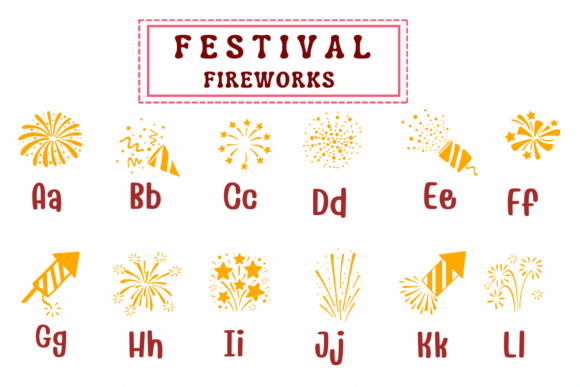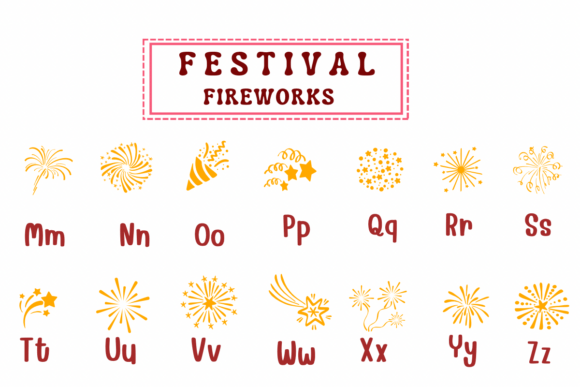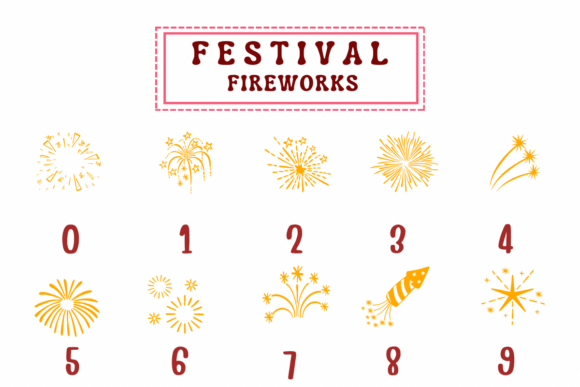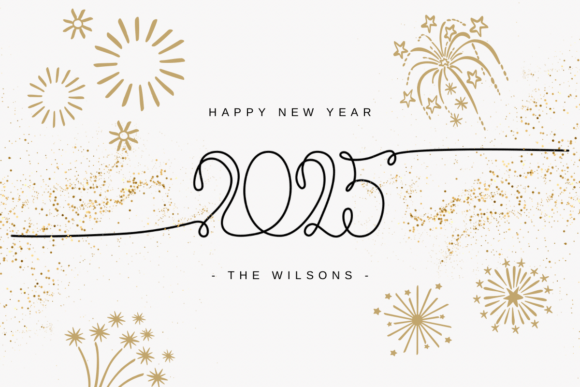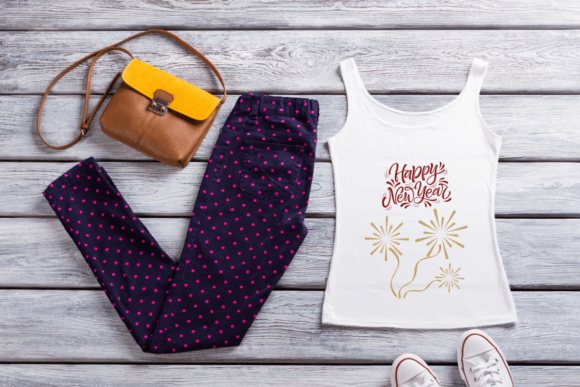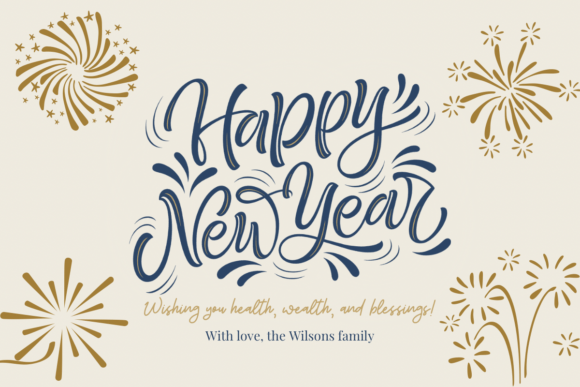
Introduction to Festival Fireworks Font
Festival fireworks is a dingbats font with theme with a sketch style.
This font can enhance your creative projects such as wedding invitations, DIY, crafts, decorations, logos, and many other creative ideas .
Key Features of Festival Fireworks Font